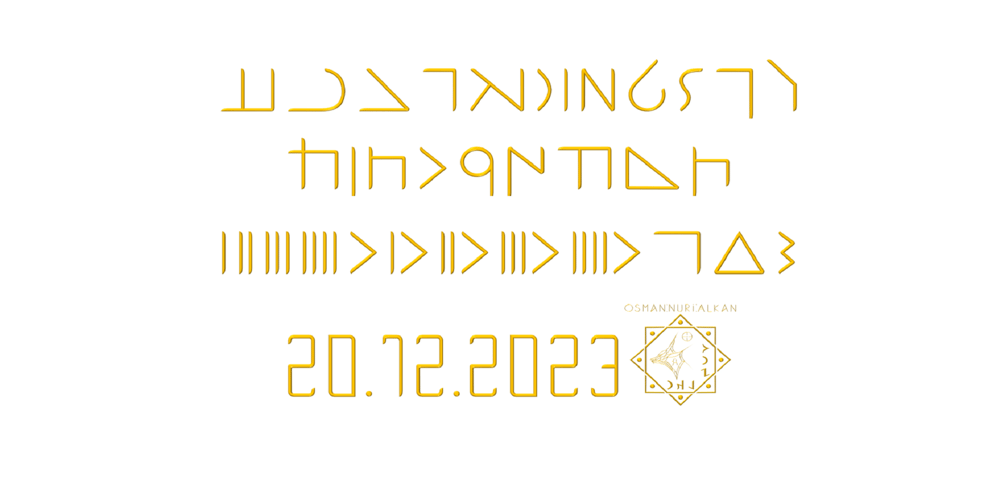
Ongunkan Hatran Hatrean
Ongunkan Hatran Hatrean font
Ongunkan Hatran Hatrean Font Family was designed by Osman Nuri ALKAN and published by Runic World Tamgacı. Ongunkan Hatran Hatrean contains 1 styles and family package options. I present Hatran as the last font of 2023.The Hatran script was used in what is now northern Iraq to write Hatran Aramaic, a Middle Aramaic dialect that was spoken in the region of Hatra and Assur in northeastern Mesopotamia from about the 3rd Century BC to the 3rd Century AD. Hatran Aramaic is also known as Aramaic of Hatra or Ashurian (Leššānā Assūrāyā ܠܫܢܐ ܐܣܘܪܝܐ), and first appeared in writing in 98 BC.The script is also known as the Hatran Aramaic script or Ashurian script. It appears mainly in texts found in the ruins of Hatra. There are also some texts in Hatran Aramaic from Assur and other places. It was discovered in 1912 by archaeologtists working in Hatra, which is near to the villages of Al-Hadar (الحضر) in the Nineveh Governorate (محافظة نينوى) of Iraq.